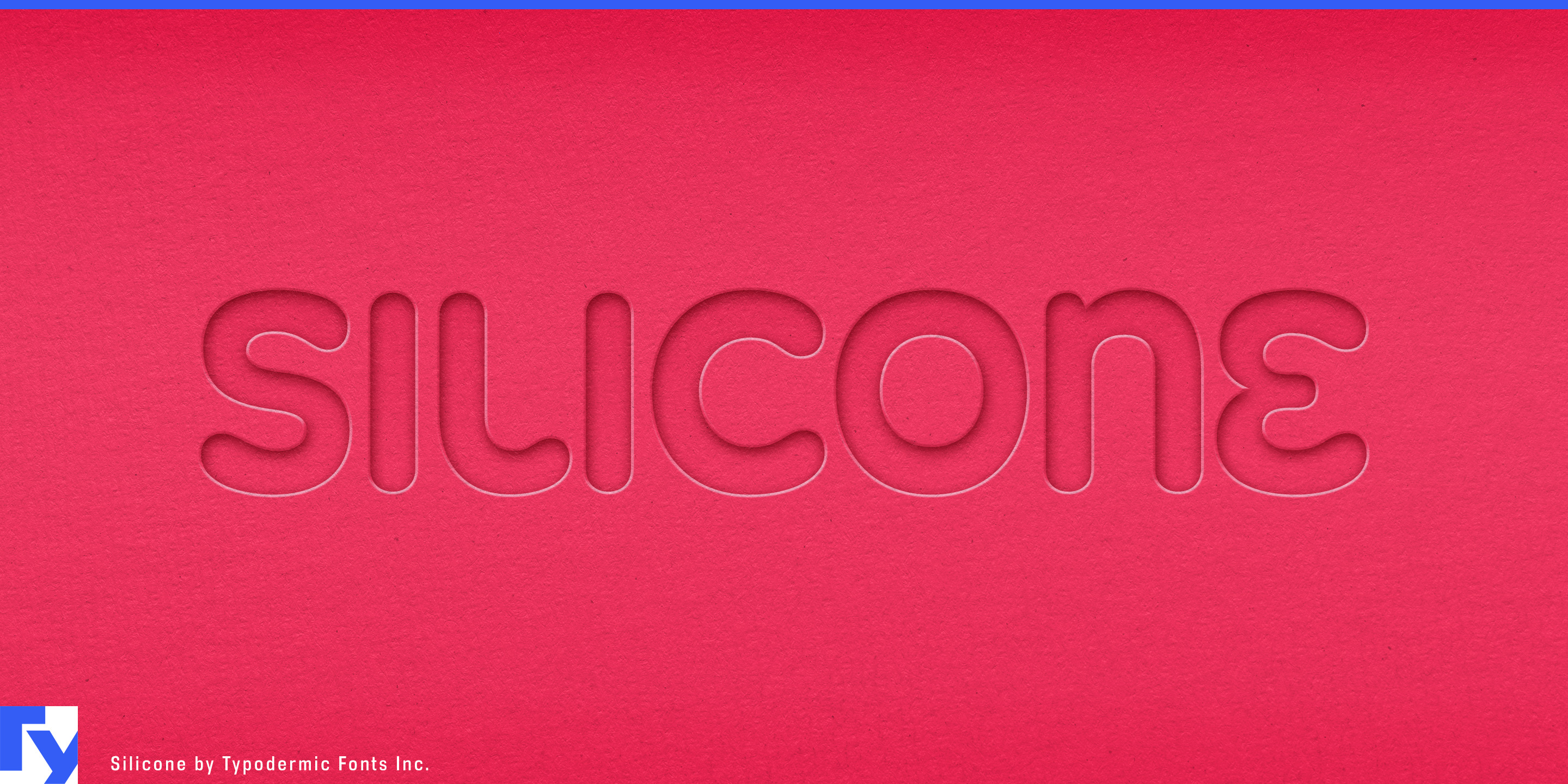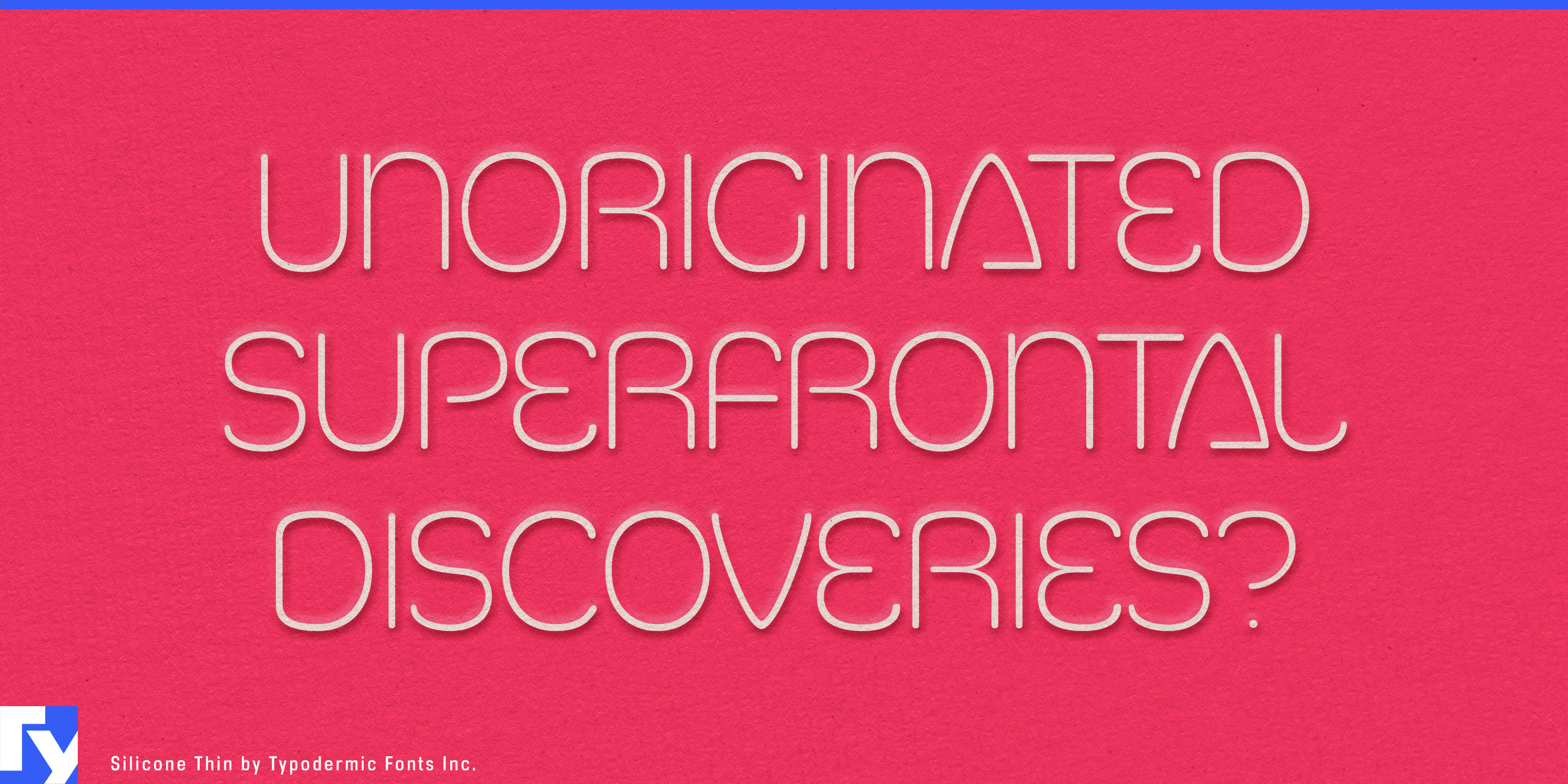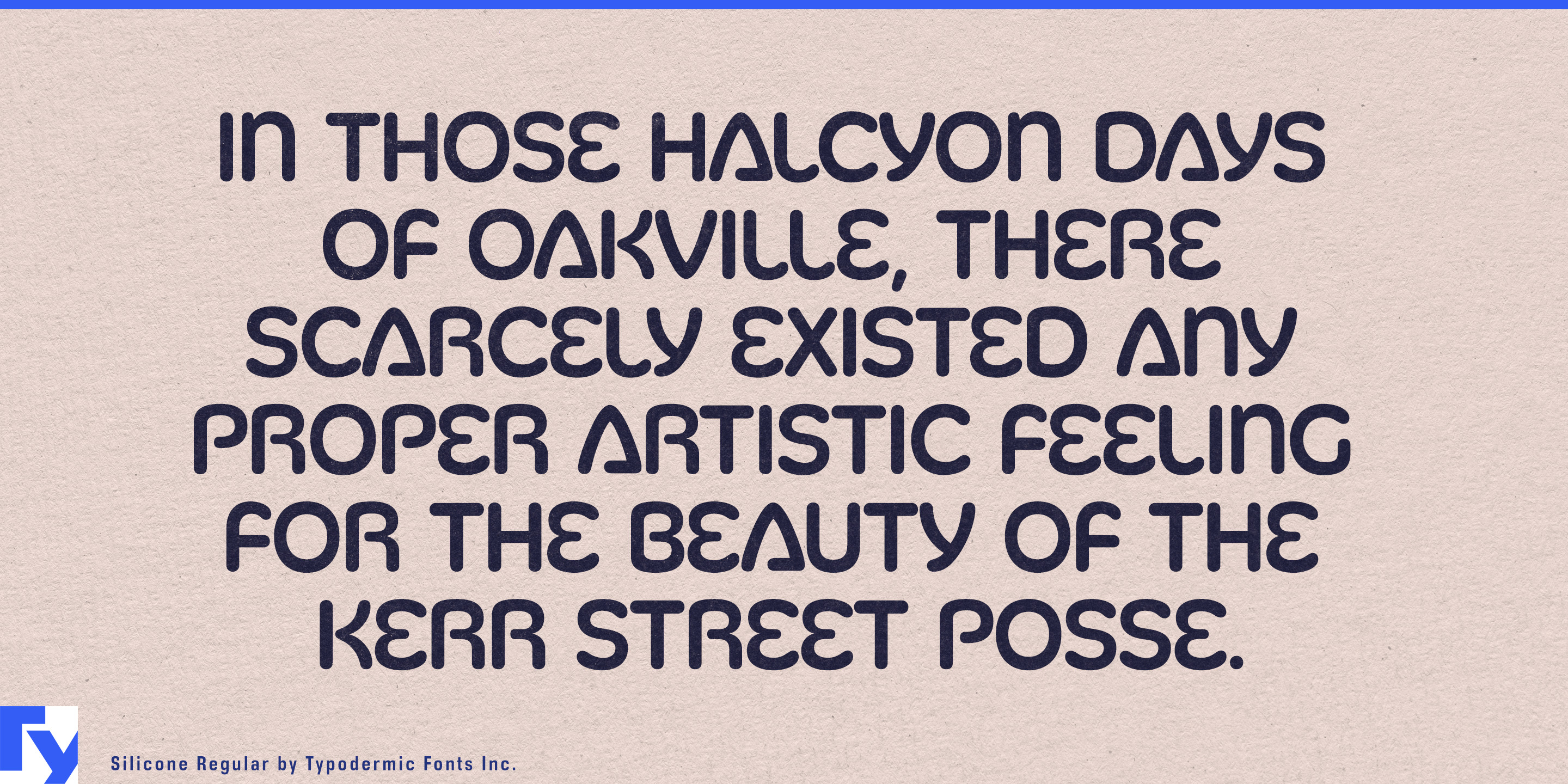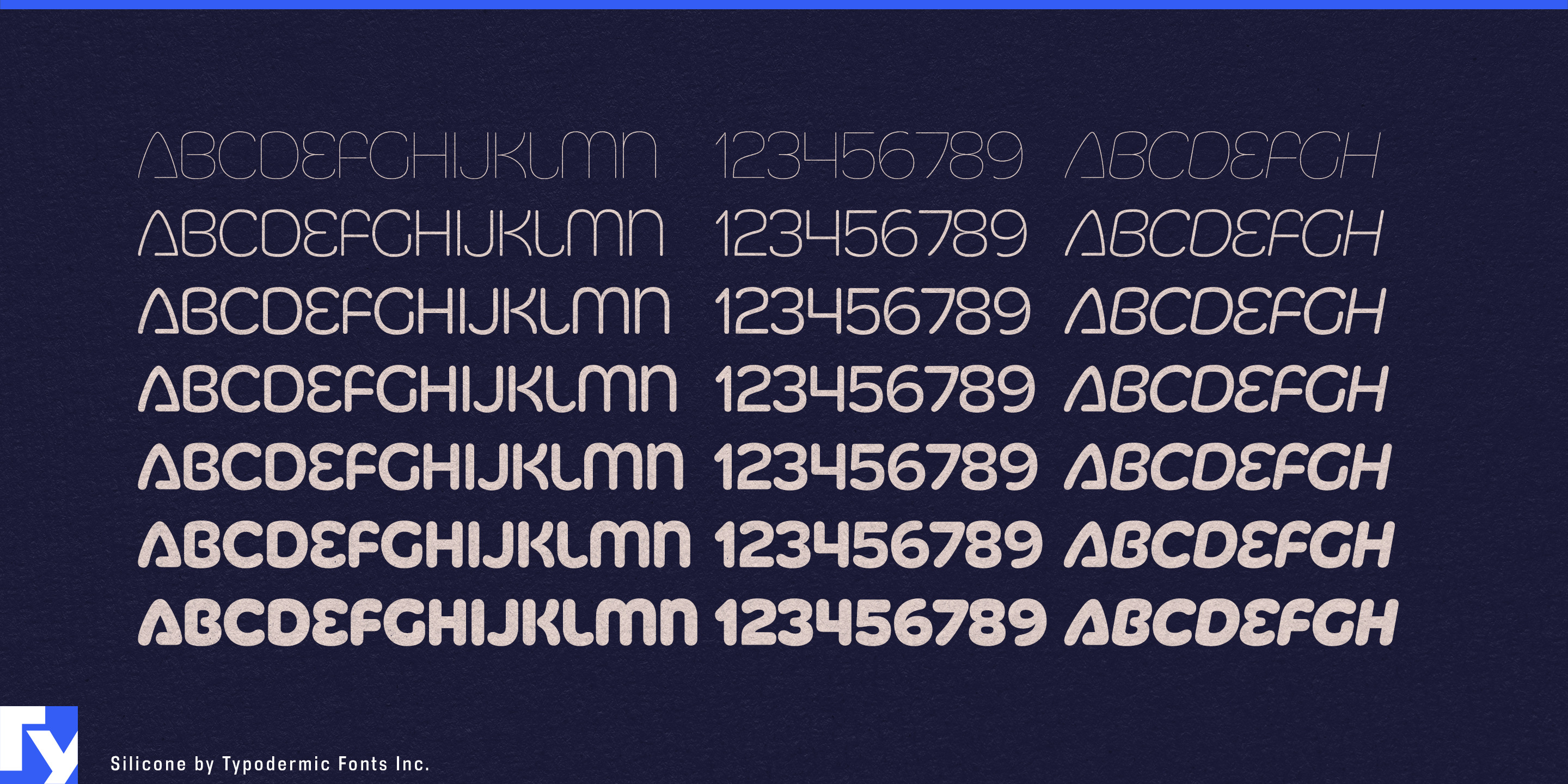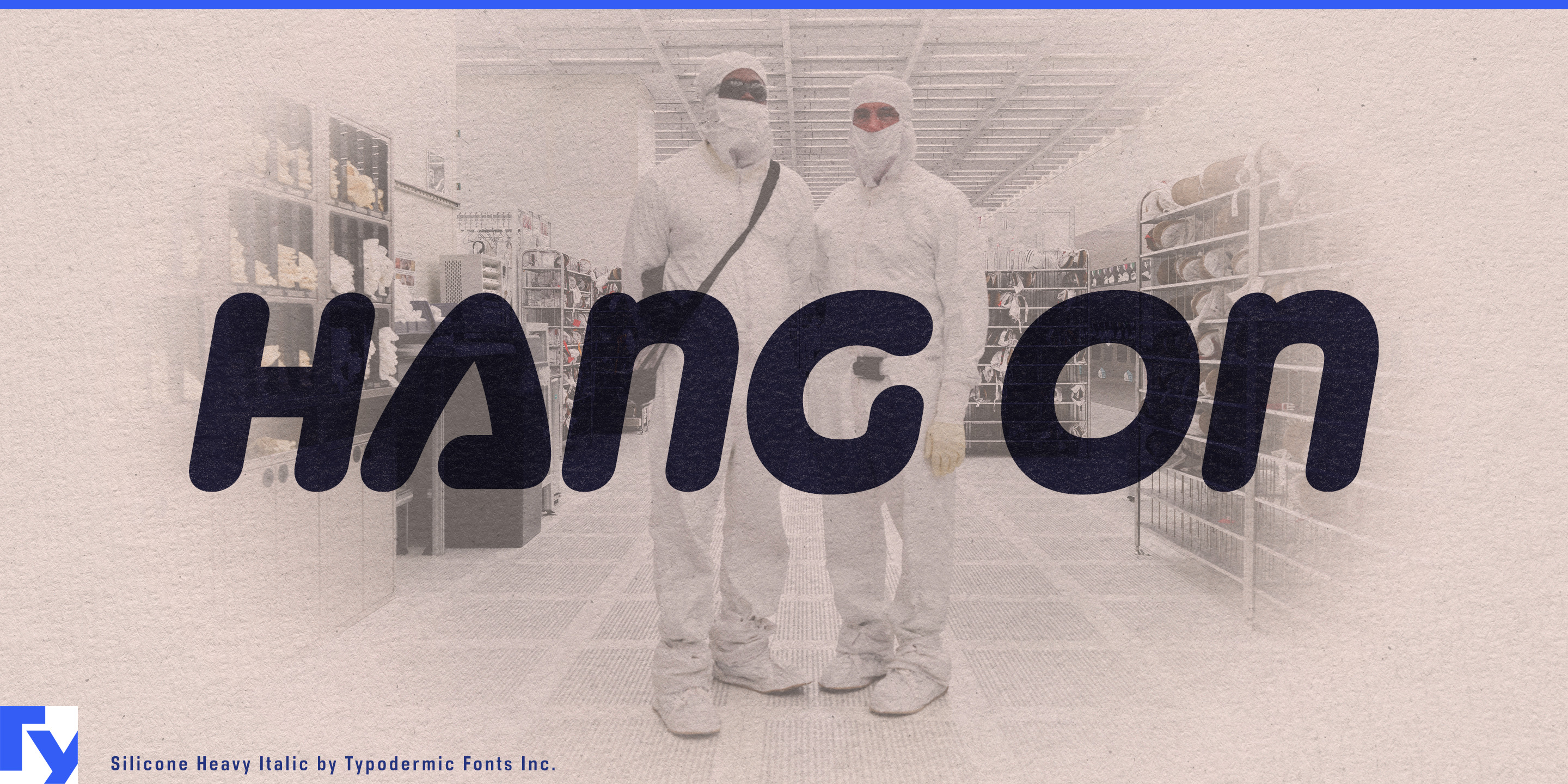
Silicone
Lettering behaves differently when it becomes part of a soft object. Fine details can disappear, delicate shapes can lose their definition, and typography that looks ordinary on a screen may feel unrelated once it is embossed or debossed into flexible material. Silicone was built around that problem, originally for lettering molded into silicone wristbands.
Its broad, rounded construction makes sense anywhere a product name or model designation needs to feel formed with the material rather than printed on top of it. Protective skins, bumpers and sleeves for portable speakers, handheld devices, meters and outdoor electronics can use Silicone for molded product names and series identities that belong to the tactile surface.
Kitchenware and hydration products extend the same idea into spatulas, reusable containers, collapsible bowls, bottle sleeves, travel cups and heat-resistant grips. Collection names, embossed handle lettering and package-front graphics can share the smooth physical language of the products themselves.
Bottle boots, soft grips, equipment bumpers and flexible training accessories provide another branch, especially where branding sits directly on surfaces designed to be held, squeezed or knocked around. Flexible technology opens a more forward-looking use; wearable patches, haptic devices, rehabilitation equipment and soft robotic components can use Silicone for product names, research identities and exhibition graphics when the hardware itself is designed to bend or conform.
With seven weights and matching italics, Silicone can build a display system across an entire product family rather than act as a single novelty mark. It was designed for lettering that feels molded into the object; wristbands established the idea, but protective electronics, kitchenware, hydration products, soft-touch equipment and flexible technology all extend the same principle.